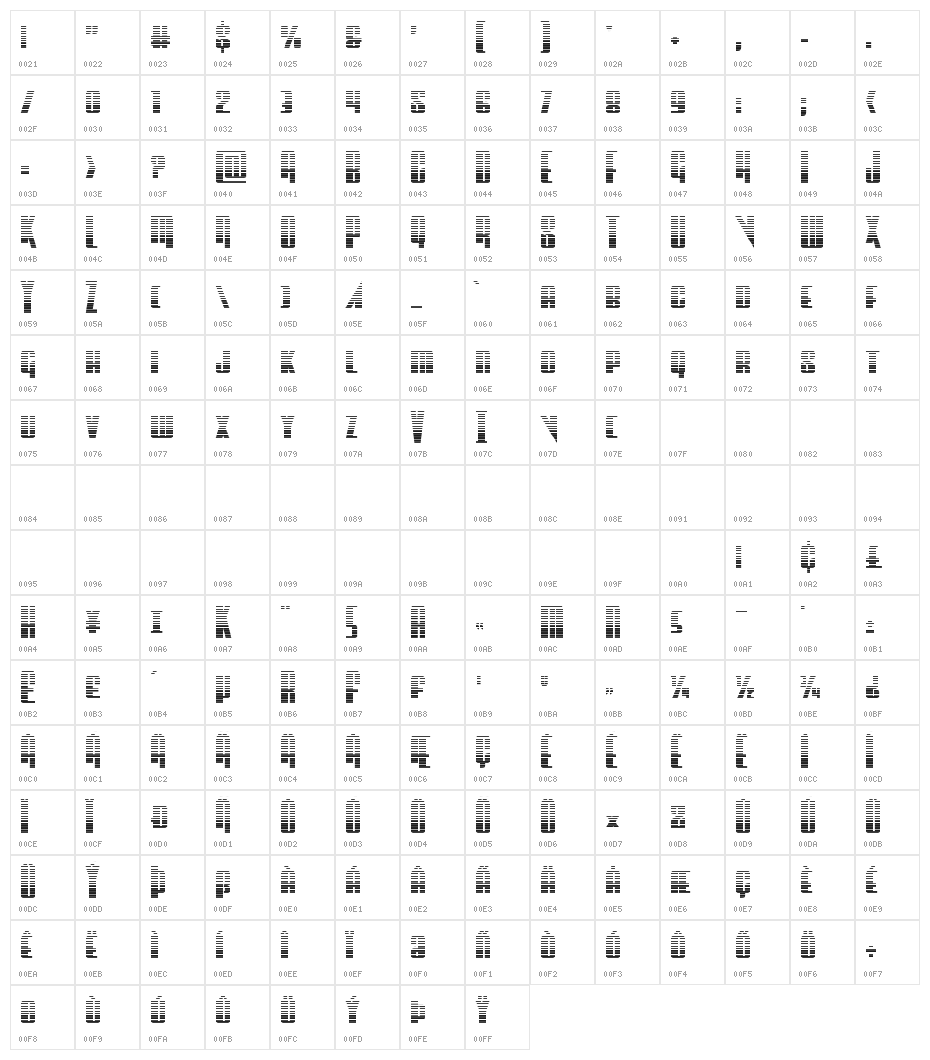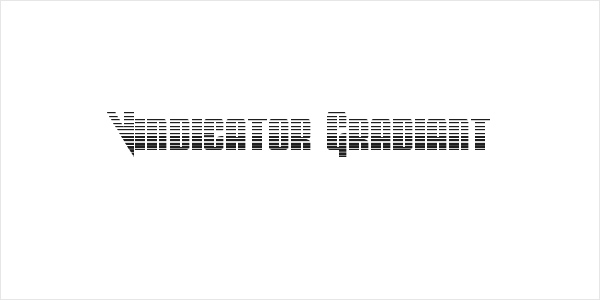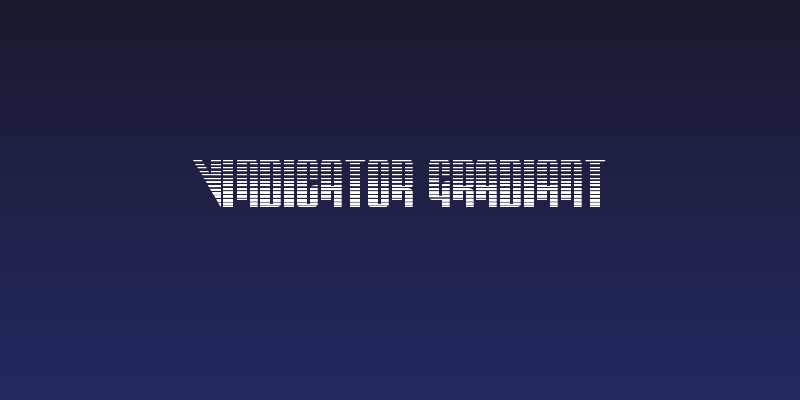
Vindicator Gradiant Font
Vindicator Gradiant Description
This font features a bold, modern design with a unique gradient effect created by horizontal lines of varying thickness. The characters are uppercase and lowercase letters, numbers, and special symbols, each with a distinct striped pattern that gives a sense of movement and depth. The font's geometric structure and uniform width make it highly legible while maintaining a striking visual impact. The design is perfect for projects that require a futuristic or tech-inspired aesthetic, as the gradient lines add a dynamic and innovative touch. Its bold presence makes it suitable for attention-grabbing headlines and logos.
Proposed ProjectsIdeal for tech-inspired designs, futuristic branding, and eye-catching headlines.